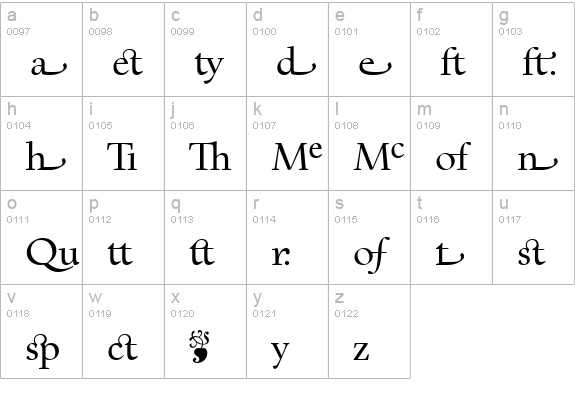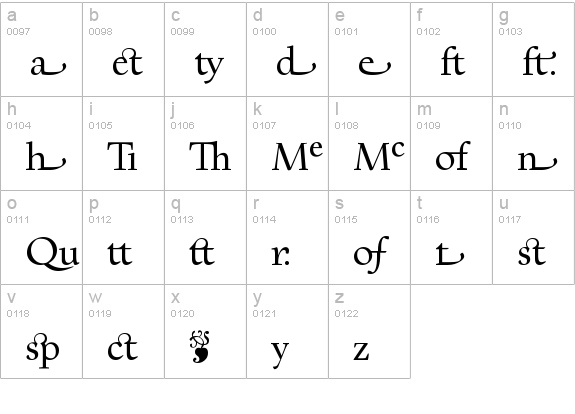
Kennedy Cus Book GD Font Details
Kennedy Cus Book GD is a comfortable, highly readable variant in the Kennedy typeface family \xE2\x80\x94 well suited to long-form body text, articles, and editorial content.
Introducing Kennedy Cus Book GD, a stunning font that effortlessly combines elegance with modernity. This versatile typeface is perfect for any project that requires a touch of sophistication and clarity. Kennedy Cus Book GD showcases a clean and refined design, making it ideal for various creative endeavors such as branding, advertising, editorial design, and more. Its balanced letterforms and careful attention to detail ensure legibility at any size, guaranteeing that your message will always be communicated effectively. This font's generous x-height and well-defined serifs lend it a timeless quality, while its subtle geometric influences add a contemporary twist. The result is a harmonious blend of classic and contemporary elements that exudes professionalism and style. What makes Kennedy Cus Book GD even more incredible is that it is free! Yes, you read that right. This font is freely available to download at FontsMarket.com, allowing you to add a touch of class to your projects without breaking the bank. So why compromise on quality when you can have it all, without spending a dime? Whether you're a designer, a business owner, a student, or anyone in need of a sophisticated typeface, Kennedy Cus Book GD is the perfect choice. Its versatility, elegance, and accessibility make it a true gem in the world of typography. Download it today from FontsMarket.com and elevate your designs to new heights.